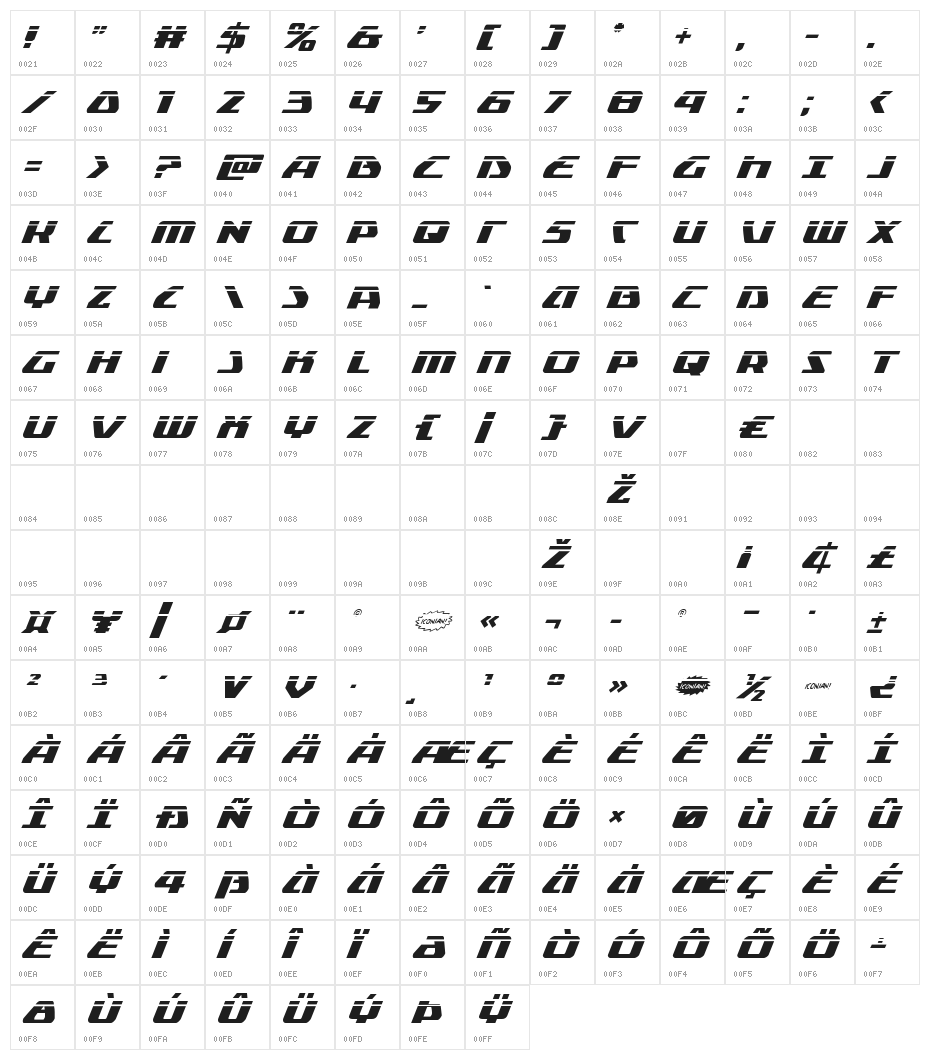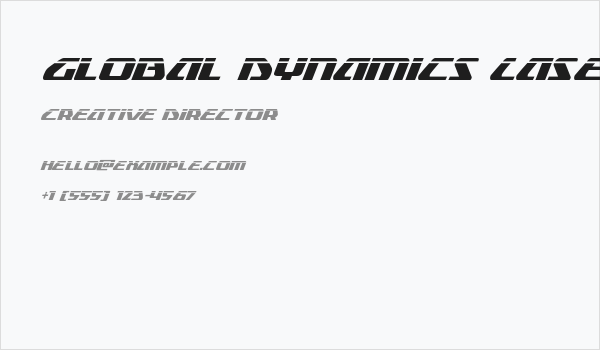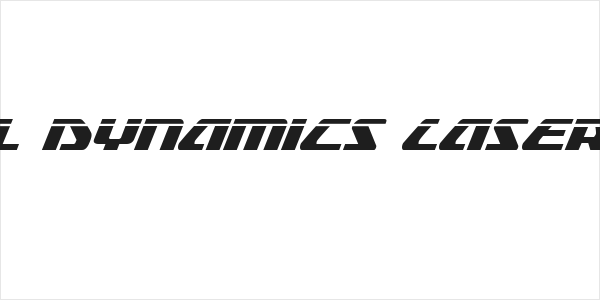
Global Dynamics Laser Italic Font
Global Dynamics Laser Italic Description
This font features a futuristic and dynamic design, characterized by sharp angles and a forward-leaning italic style. The letters are bold and geometric, with a distinct slant that gives a sense of motion and speed. The uppercase and lowercase letters maintain a consistent style, emphasizing angular cuts and a streamlined appearance. Numbers and special characters follow the same design principles, ensuring uniformity across all glyphs. The font's boldness and unique style make it stand out, ideal for projects that require a modern and edgy look.
| Proposed Projects | Ideal for sci-fi themed designs, technology branding, video game titles, and futuristic posters. |